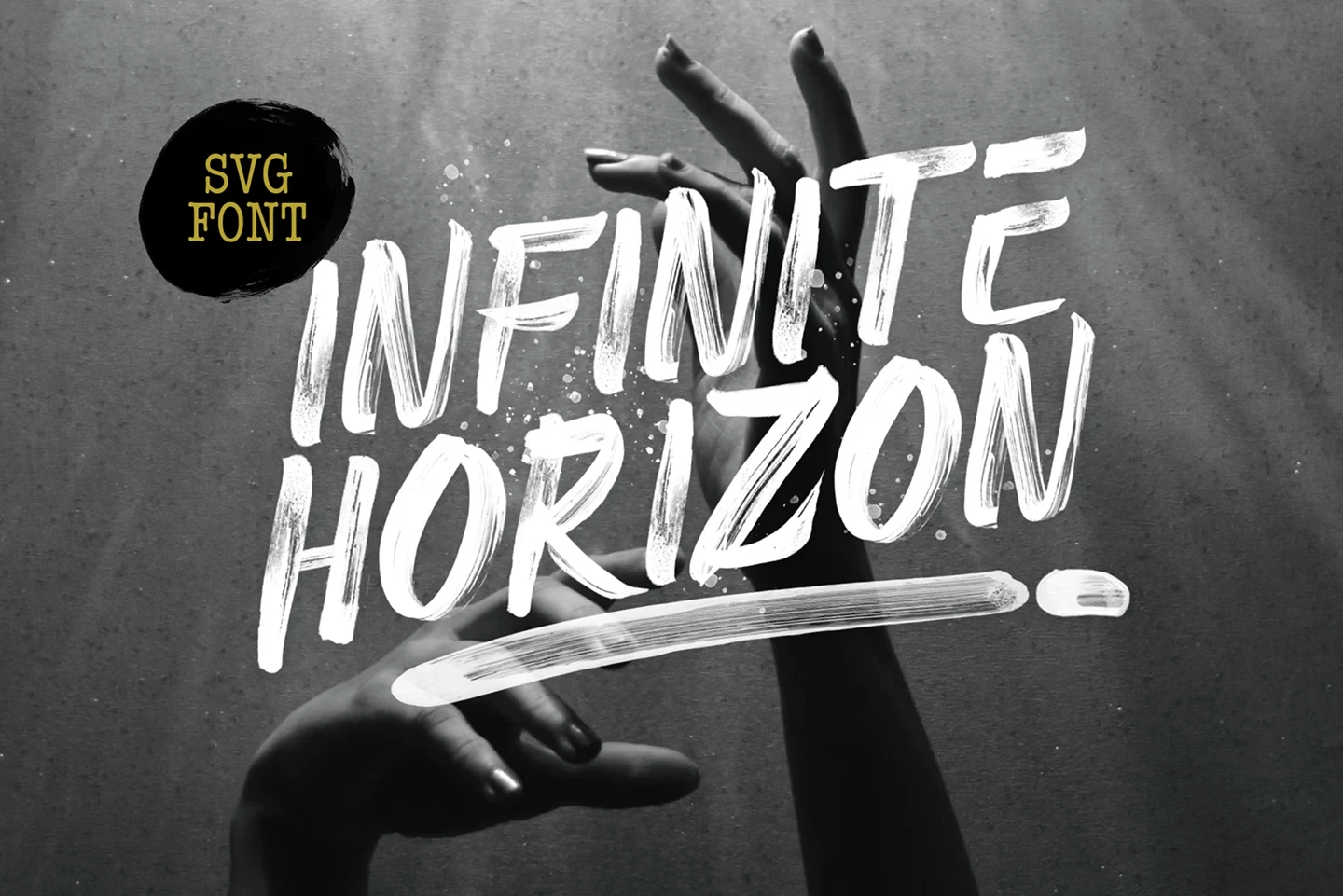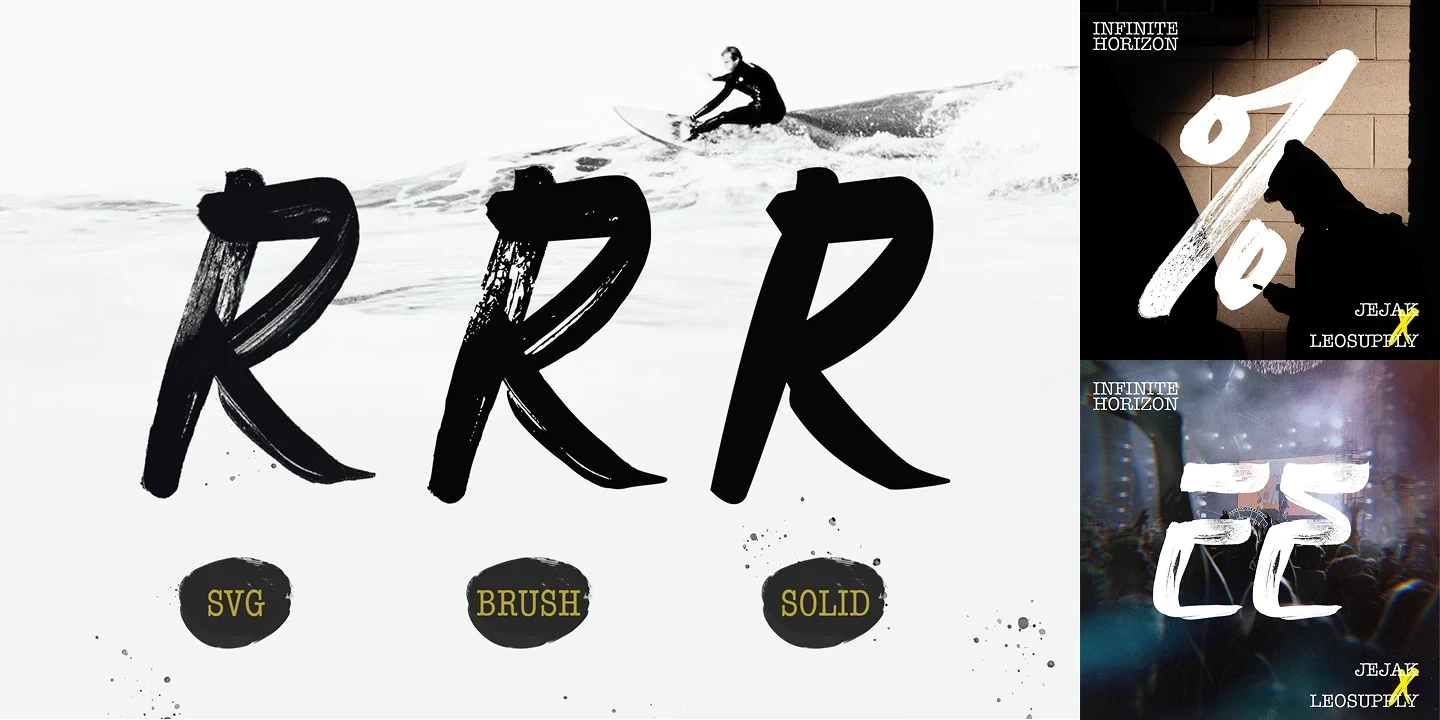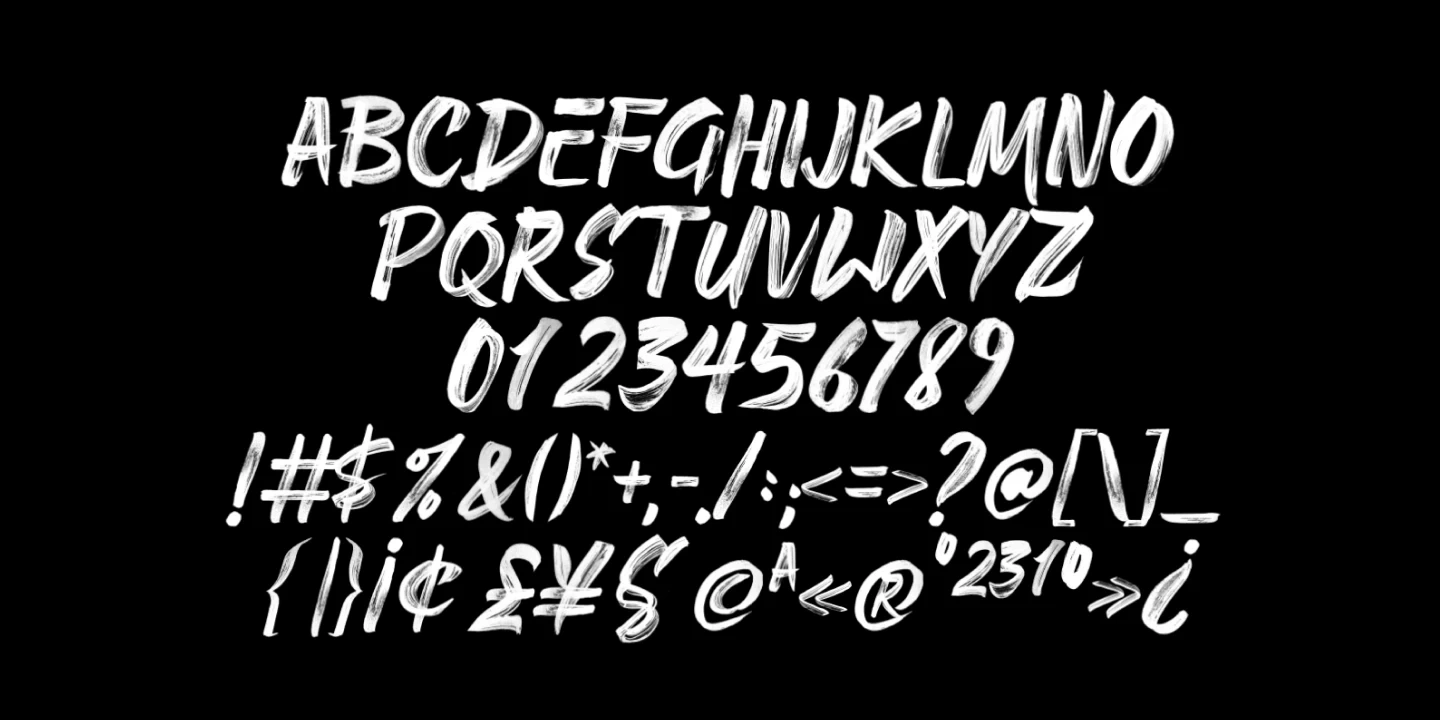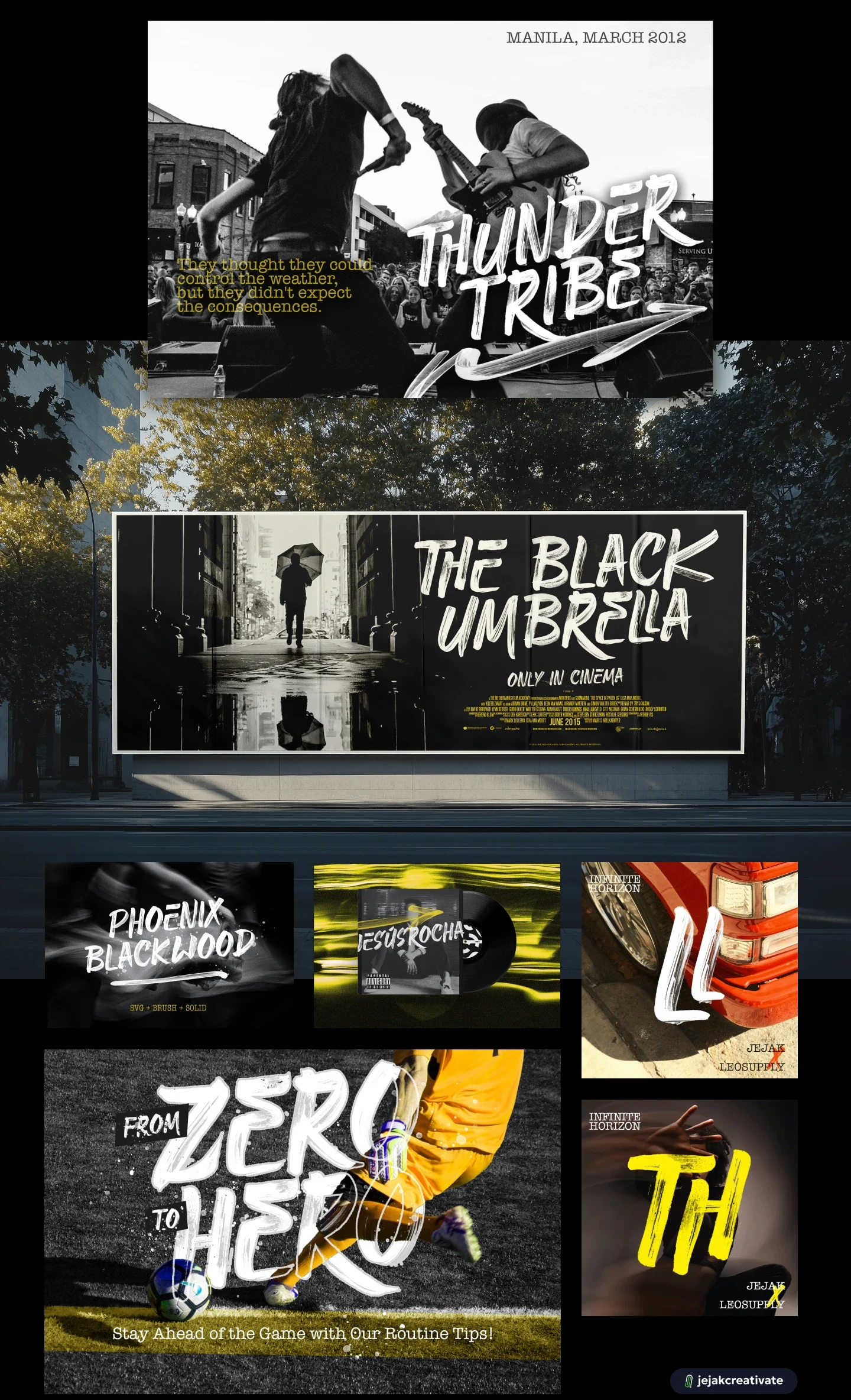
Infinite Horizon - SVG Brush Font
Johan Ferdian JR
Infinite Horizon is a fresh and expressive typeface designed to bring your creative vision to the forefront. This bundle comes with not one, but three distinct styles, carefully crafted to complement each other while offering a range of expressive possibilities. The SVG version allows for extra flexibility and compatibility with various graphic design software. The font created with real brush marker to get the realistic texture.
Designed Infinite Horizon typeface with three styles for Leosupply.